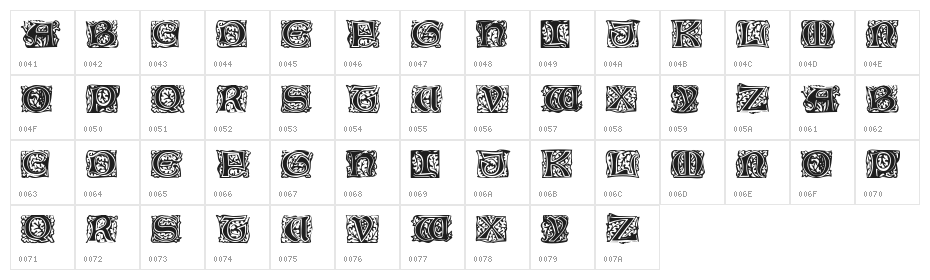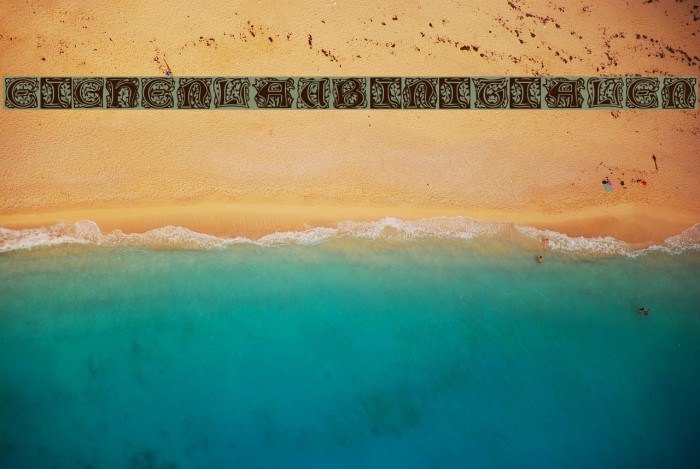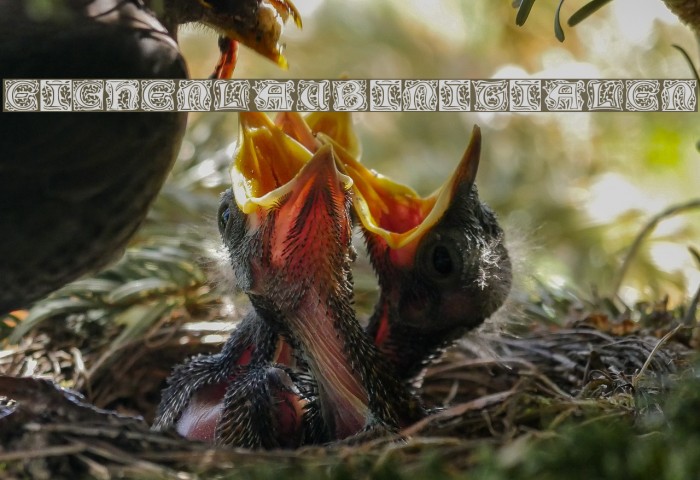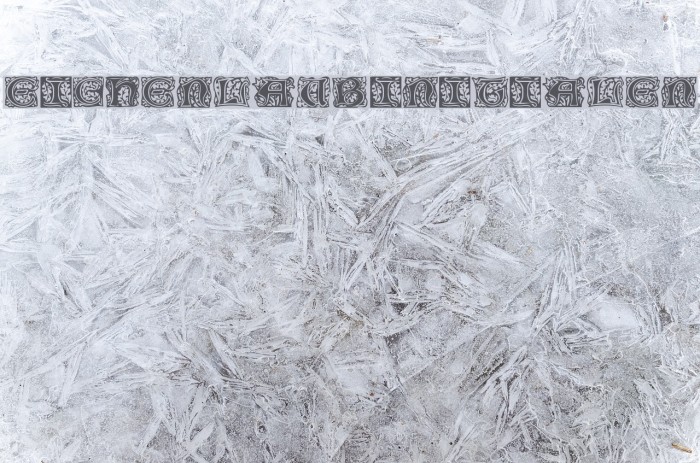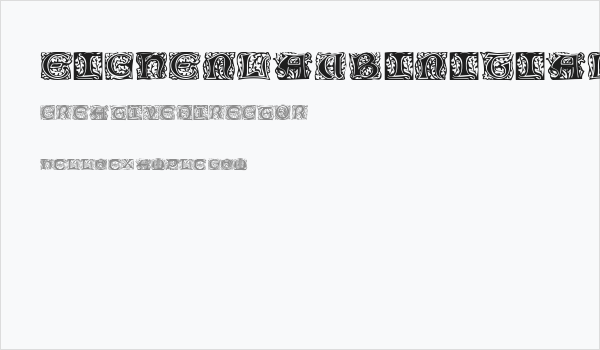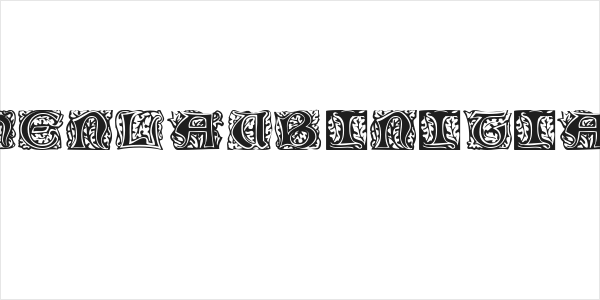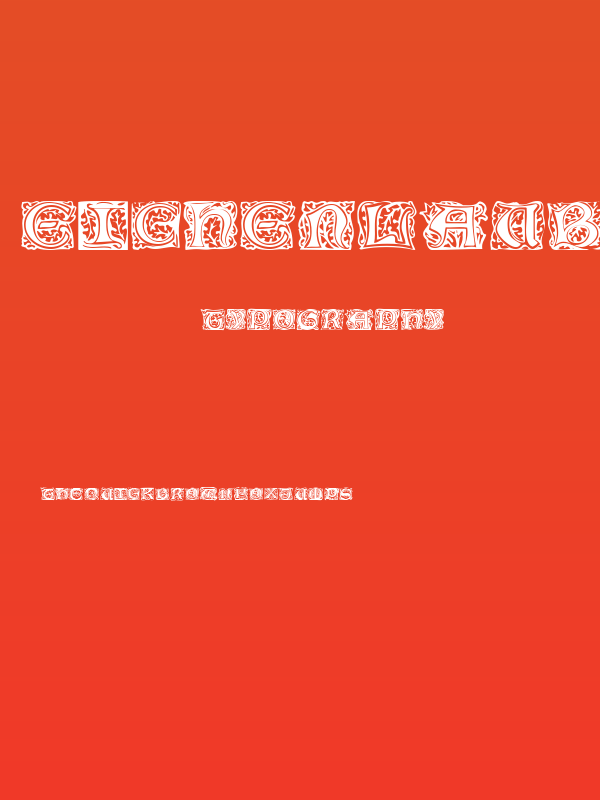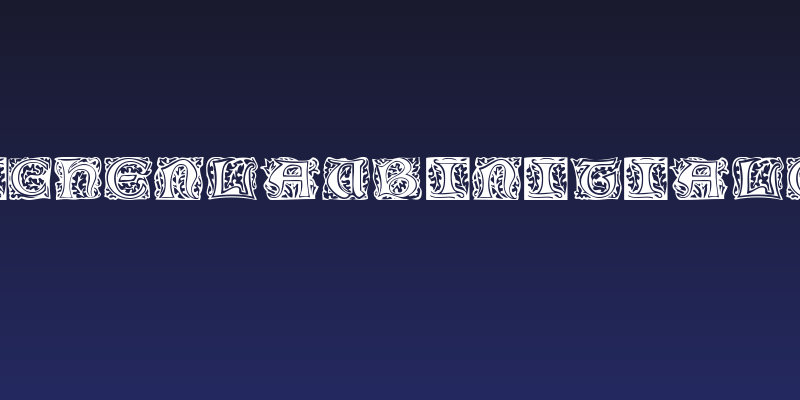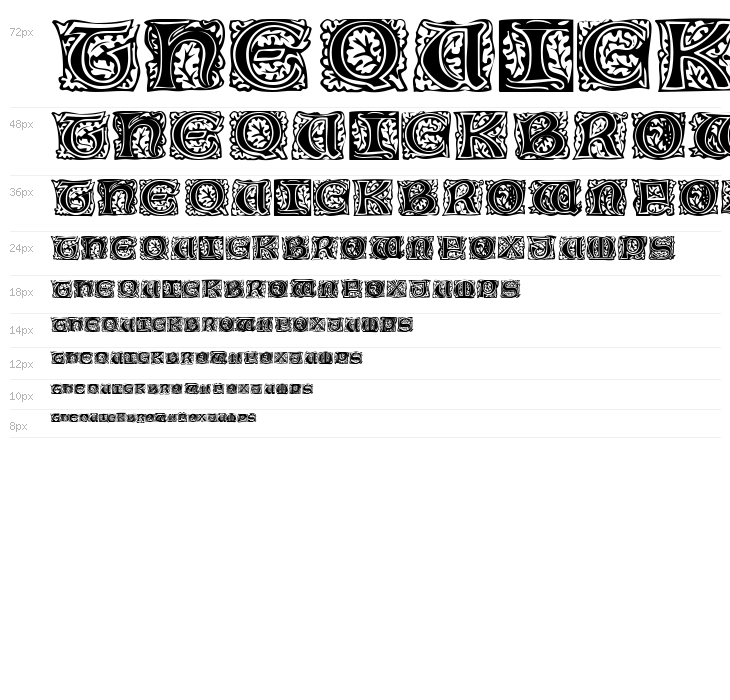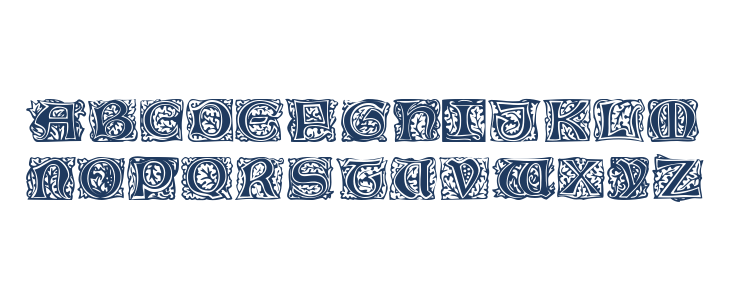
Eichenlaub Initialen Font
Eichenlaub Initialen Description
This font is a highly decorative and intricate typeface, featuring elaborate floral and leaf motifs within each letter. The design is reminiscent of traditional illuminated manuscripts, with each character enclosed in a square frame that enhances its ornamental nature. The letters are bold and striking, with a high level of detail that makes them stand out. The overall aesthetic is both vintage and artistic, making it suitable for projects that require a touch of elegance and historical charm.
| Overall Style | Vintage, Decorative |
| Use Case | Logos, Headlines, Decorative purposes |
| Proposed Projects | Ideal for wedding invitations, historical book covers, decorative posters, and branding that requires a classic and artistic touch. |